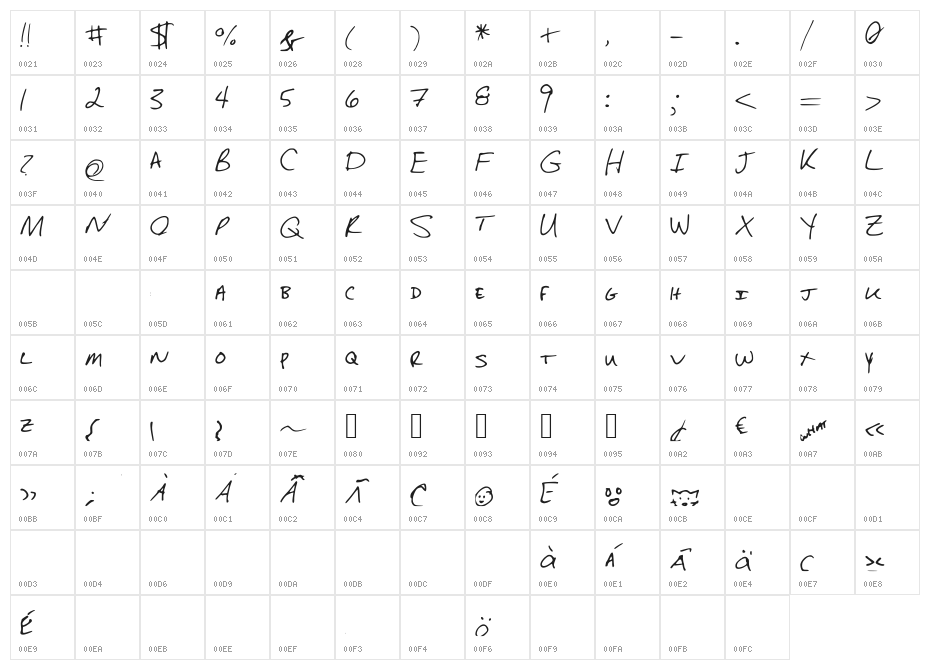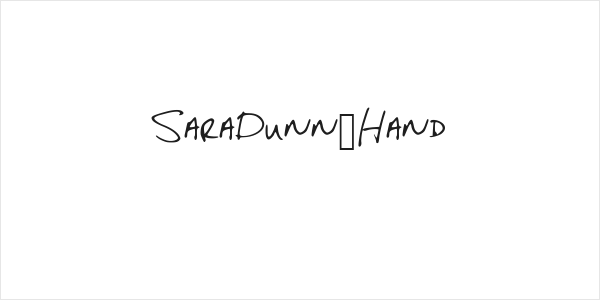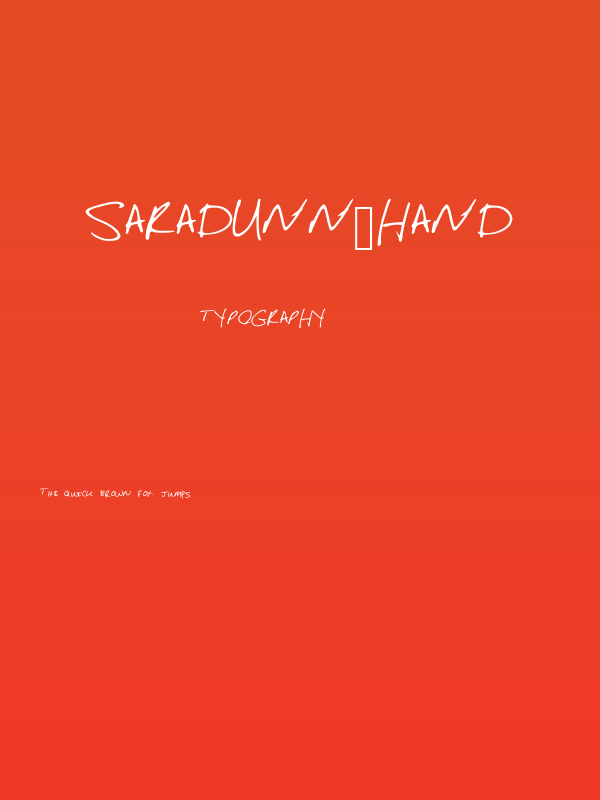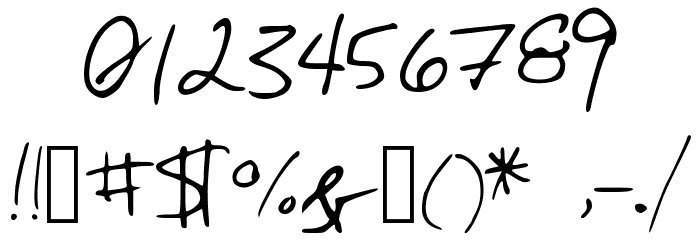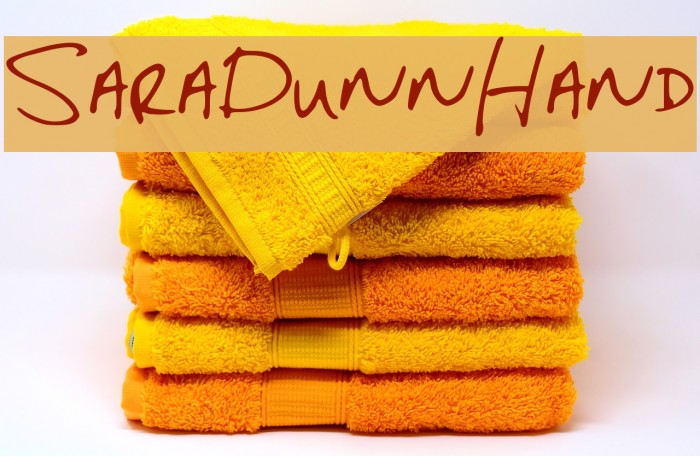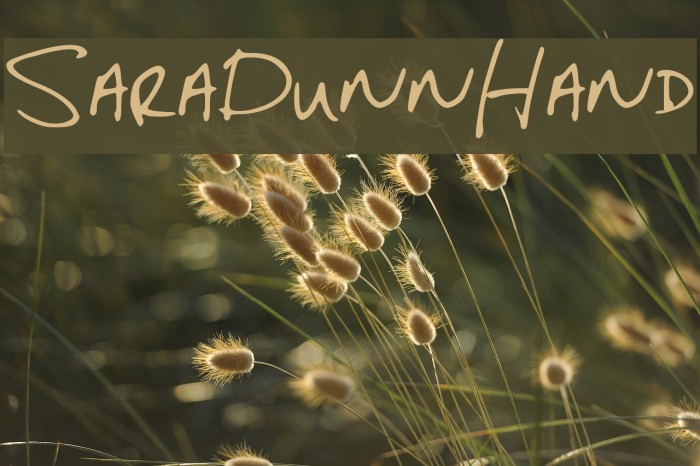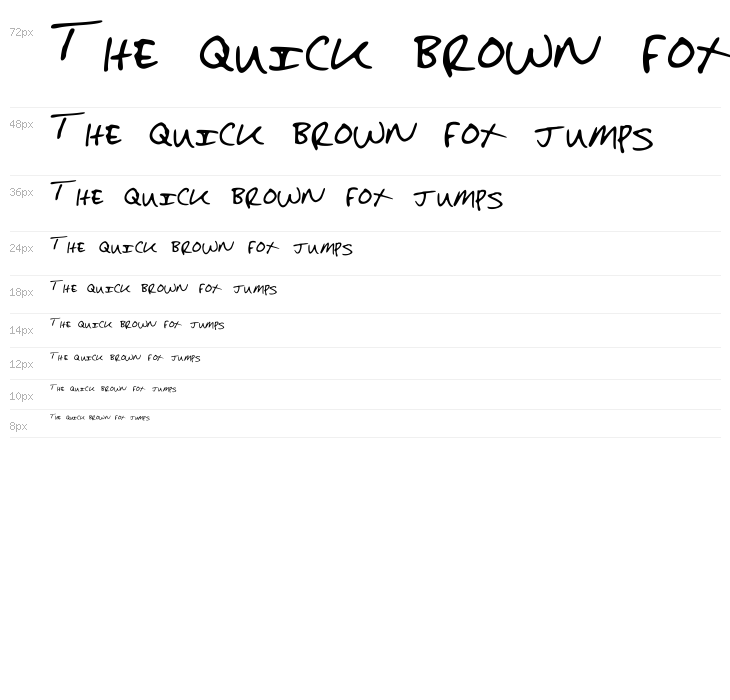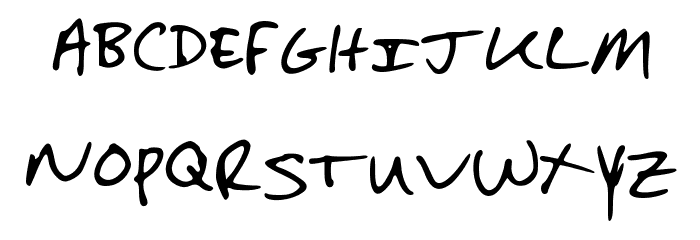
SaraDunn_Hand Font
SaraDunn_Hand Description
This font exhibits a casual, handwritten style with a natural flow and a slightly uneven baseline, giving it an authentic and personal touch. The characters are crafted with a smooth, continuous stroke that mimics the fluidity of handwriting. The uppercase letters are slightly larger and more pronounced, while the lowercase letters maintain a consistent size, enhancing readability. The numerals are distinct and clear, matching the overall style of the alphabet. Special characters are included, maintaining the same handwritten aesthetic. The font's informal and approachable appearance makes it suitable for projects that require a personal or creative touch.
| Use Case | Logos, Invitations, Personal notes |
| Proposed Projects | Ideal for personal notes, creative projects, invitations, and informal branding. |